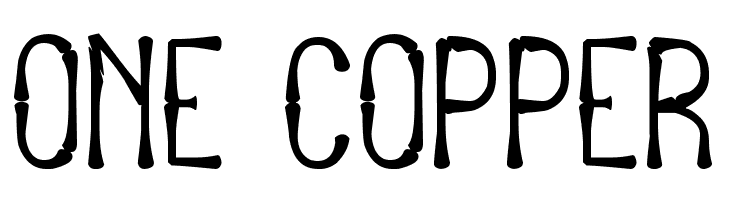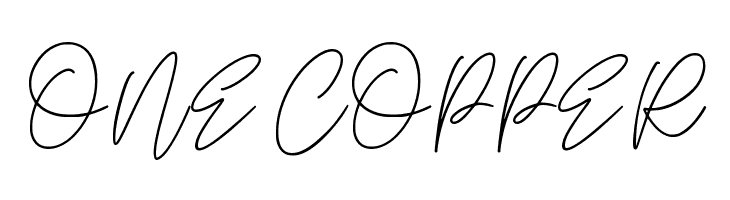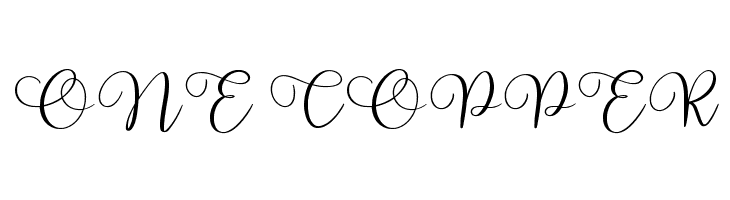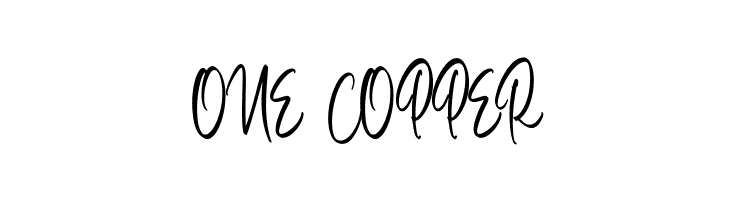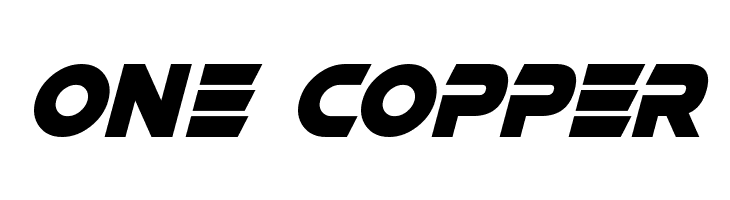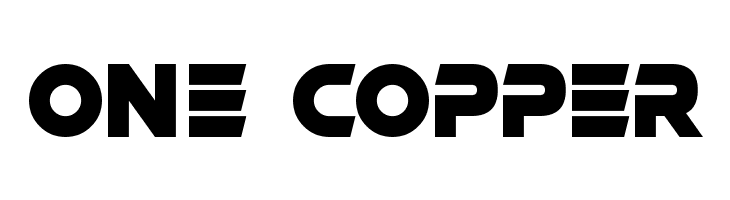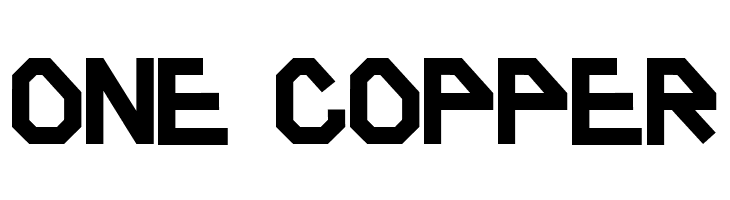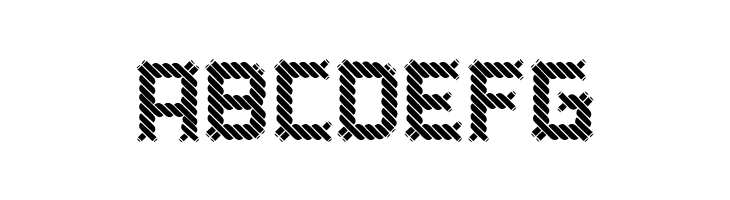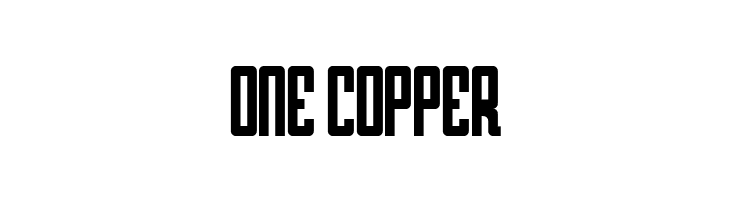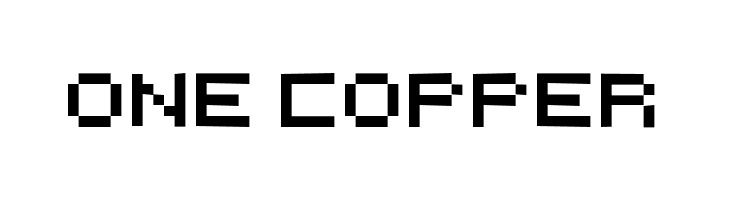
A playful, bone-themed font with pirate symbols, perfect for adventurous designs.
A bold, stencil-like font with geometric influences and strong visual impact.
A bold, modern font with a stencil-like, industrial design.
A playful, bold handwritten font with dynamic strokes and a casual style.
A dot matrix style font with a modern, digital aesthetic.
A collection of geometric shapes with a striped, slatted design.
A retro, pixelated font inspired by classic 8-bit video games.
A scratchy, hand-drawn font with a textured, artistic style.
A bold, distressed font with boxed characters and a vintage feel.
A bold, distressed font with a vintage, grunge aesthetic.
Bold, boxed font with a distressed, vintage style.
Bold, distressed font with a boxed, cut-out style.
A playful, handwritten font with tall, narrow letters and consistent stroke width.
A decorative font with geometric lines and curves, offering a futuristic and artistic style.
A bold, textured font with a woven pattern, ideal for dynamic and modern designs.
A casual, handwritten font with a friendly and approachable style.
A bold, italic, 3D font with outlined characters for a dynamic look.
A bold, 3D outlined font with a modern and impactful style.
A decorative font with uppercase letters and numbers in ornate frames.
A bold, modern italic font with smooth, fluid strokes and slightly condensed letterforms.
A bold, striking font with thick, uniform strokes and a dynamic feel.
A bold, brush-textured font with a dynamic and artistic style.
A bold, brush-style font with an artistic, hand-drawn appearance.
A bold, rounded font with a modern and clean aesthetic.
A bold, italicized font with rounded, modern characters and a dynamic style.
A modern, geometric font with clean lines and uniform stroke widths.
A sleek, modern italic font with consistent stroke width and rounded edges.
A modern, geometric font with clean lines and rounded edges, perfect for bold headlines.
A modern, italic font with rounded edges and uniform stroke width.
A sleek, modern italic font with thin lines and geometric structure.
A modern, geometric font with clean lines and a minimalist aesthetic.
A bold, rounded font with thick strokes and smooth curves.